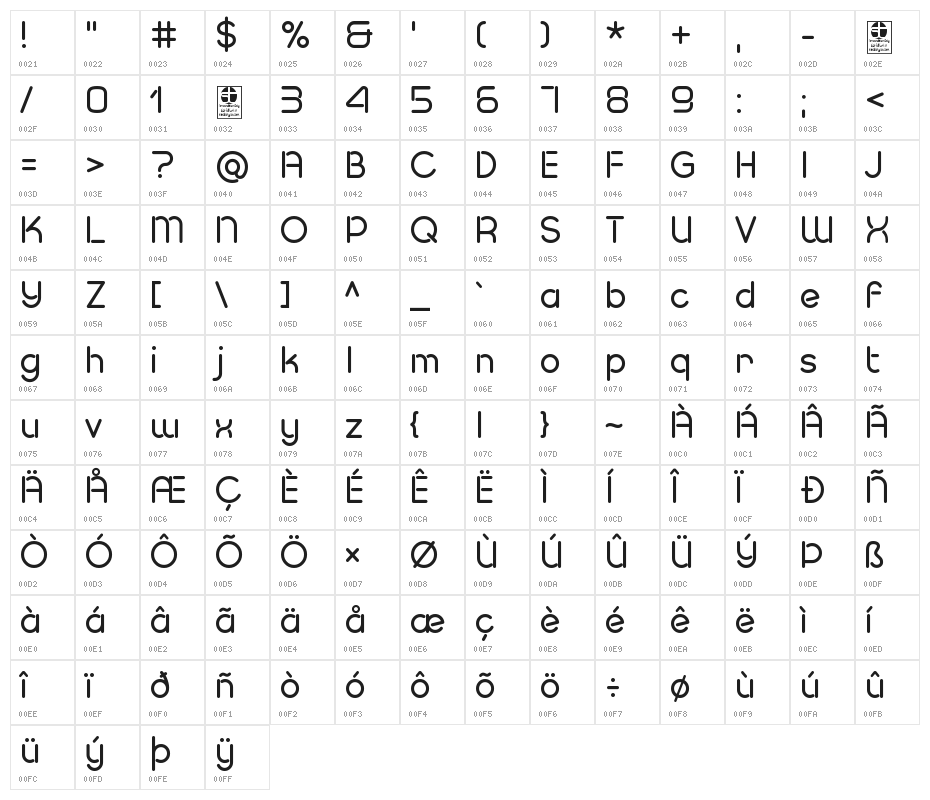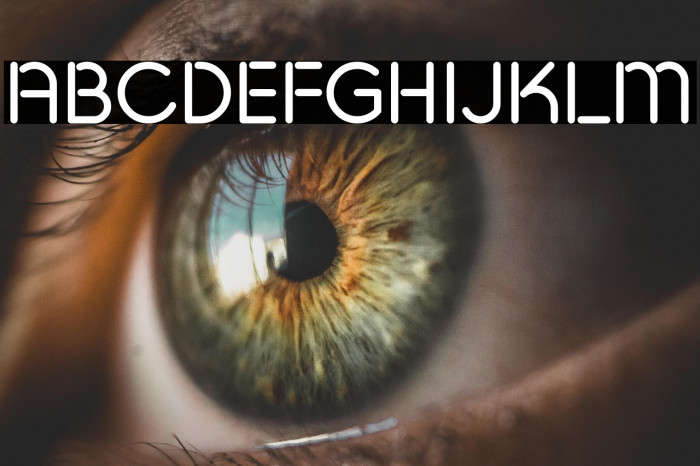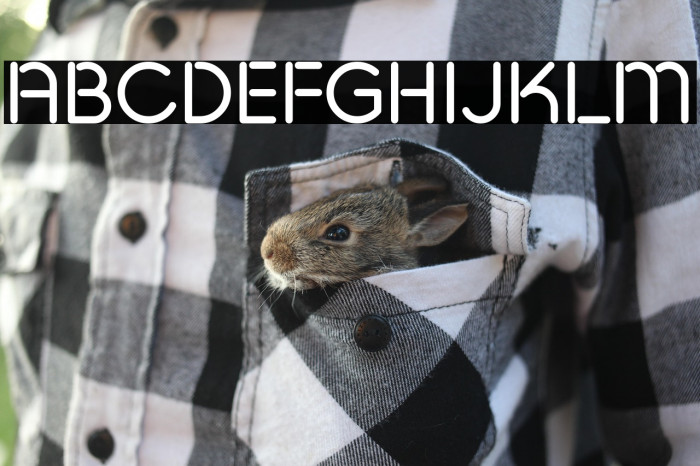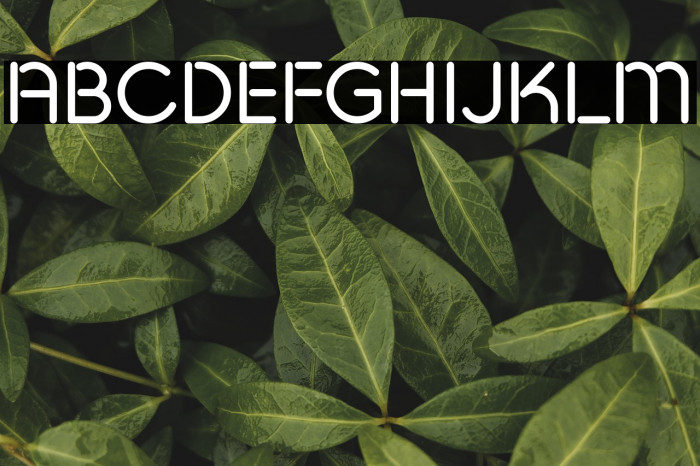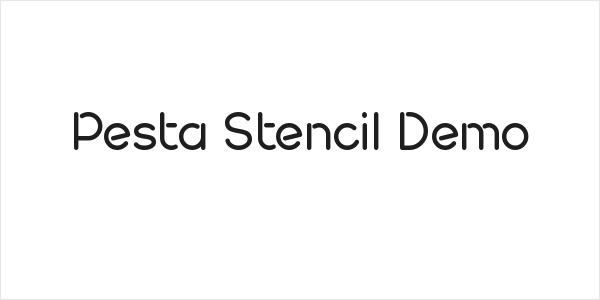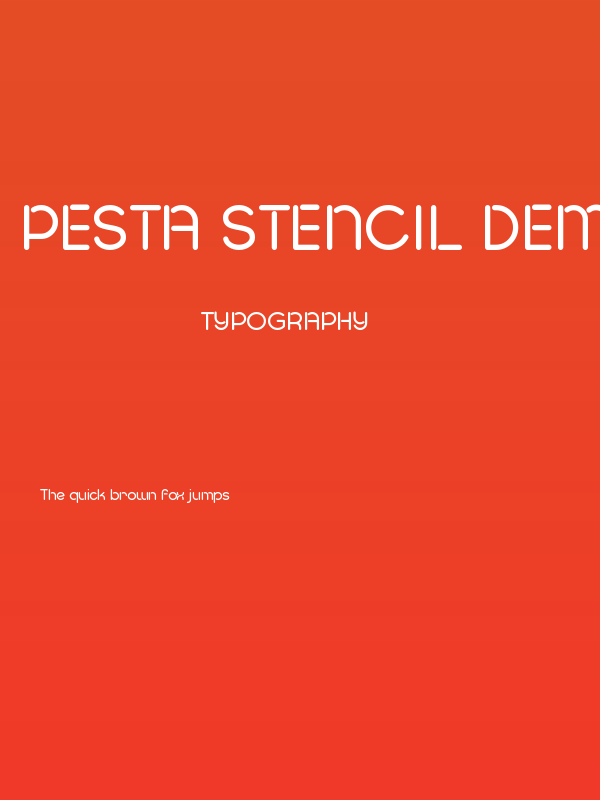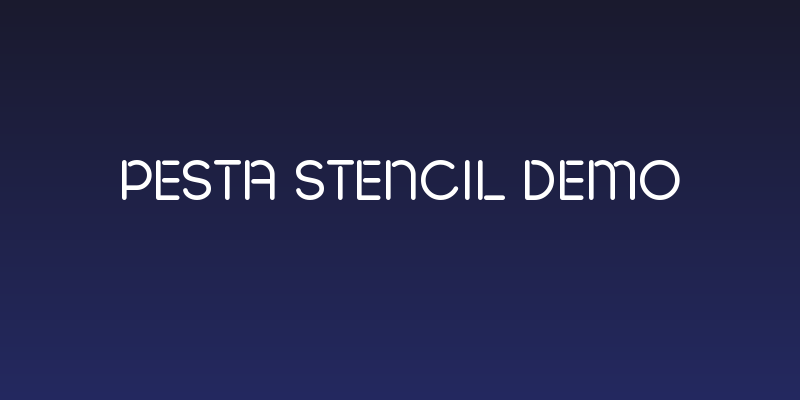
Pesta Stencil Demo Font
Pesta Stencil Demo Description
This font features a modern, stencil-like design with rounded edges and clean lines. Each character is crafted with precision, offering a futuristic and sleek appearance. The uppercase and lowercase letters maintain a consistent style, with subtle variations that add to the font's unique charm. The numerals and special characters are equally well-designed, ensuring versatility across various applications. The overall aesthetic is minimalistic yet bold, making it suitable for contemporary design projects.